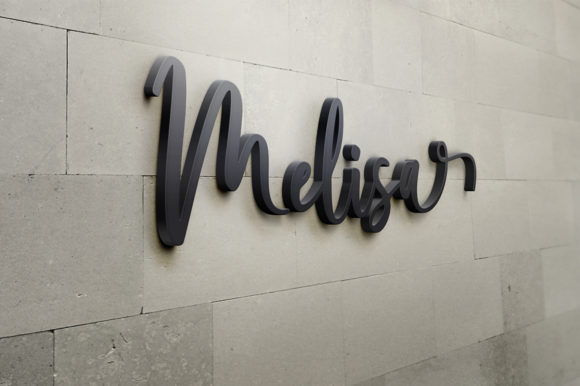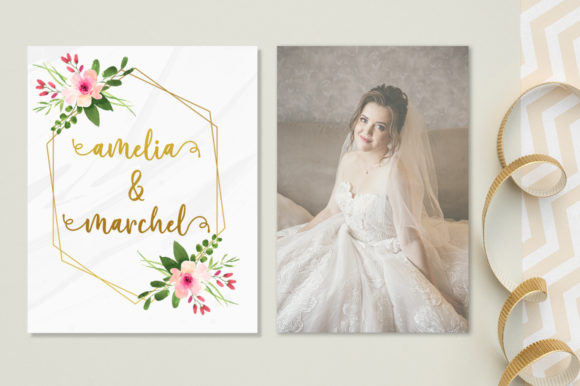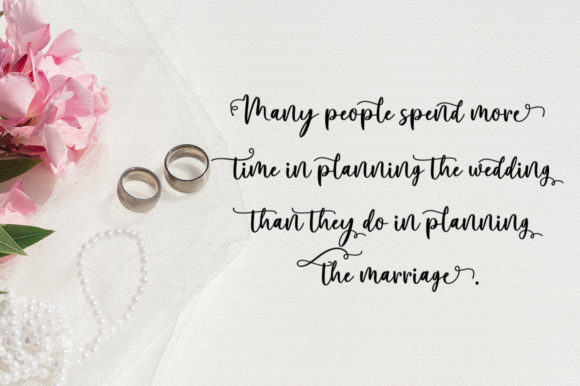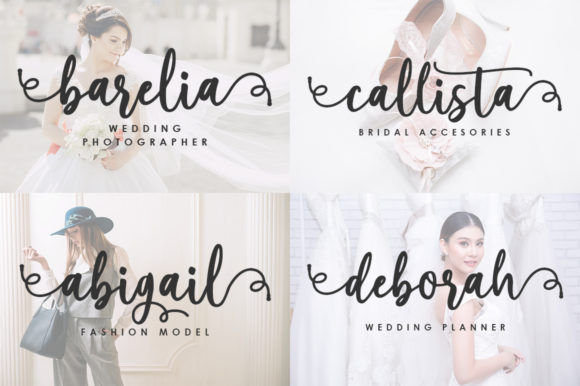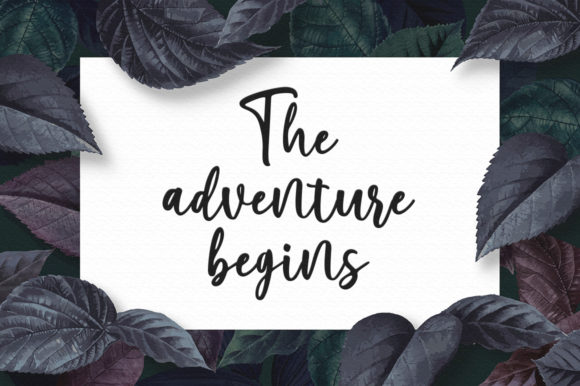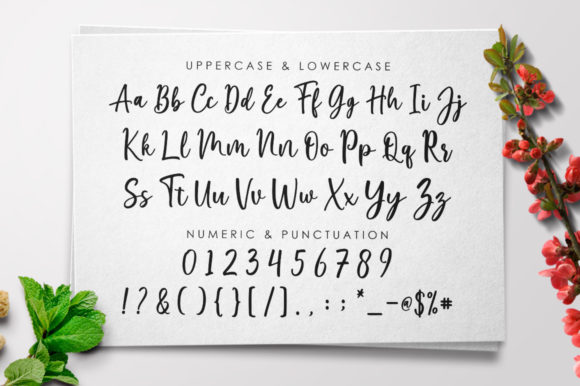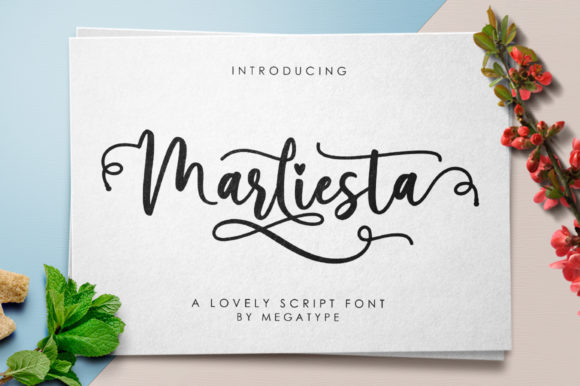
HomeScript FontsMarliesta Font Script Fonts Marliesta Font FacebookXPinterestWhatsApp Marliesta Font Poster 2 Marliesta Font Poster 3 Marliesta Font Poster 4 Marliesta Font Poster 5 Marliesta Font Poster 6 Marliesta Font Poster 7 Marliesta Font Poster 8 About Marliesta Font Marliesta is a beautiful and charming script with a cool vibe. Get inspired by its contemporary elegance. DOWNLOAD NOW People also explored Lindkvist One Stonefloral Font Embryo Open Ma Fille Font Sweet Handmade Font Courtside Font Mayhena Font Amorra Script Donna Julia 361 0 TagsMarliesta Font Previous articleRamstay FontNext articleLightness Font LEAVE A REPLY Cancel reply Comment: Please enter your comment! Name:* Please enter your name here Email:* You have entered an incorrect email address! Please enter your email address here Website: Save my name, email, and website in this browser for the next time I comment. Personal Use Free Pasile Personal Use Free Read more about this font Bukhari Script Personal Use Free Read more about this font City Tour Personal Use Free Read more about this font Denisha Personal Use Free Read more about this font BLOG Fonts That Capture the Spirit of New York City New York City is more than just a place—it’s an experience, a rhythm, a visual language... Modern Sans-Serif Fonts That Brands Love in 2025 Best Fonts for YouTube Videos: Make Your Thumbnails Stand Out Best Fonts for T-Shirt Design – Top 2025 Picks